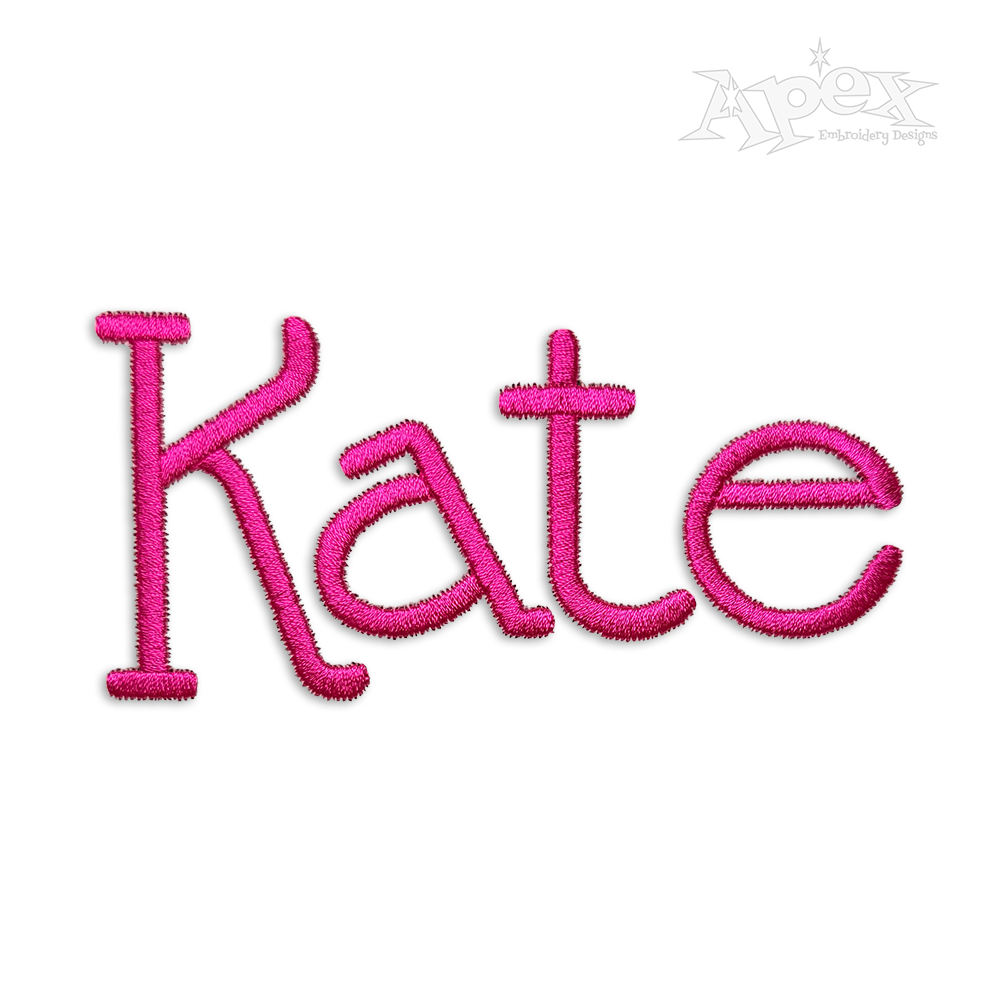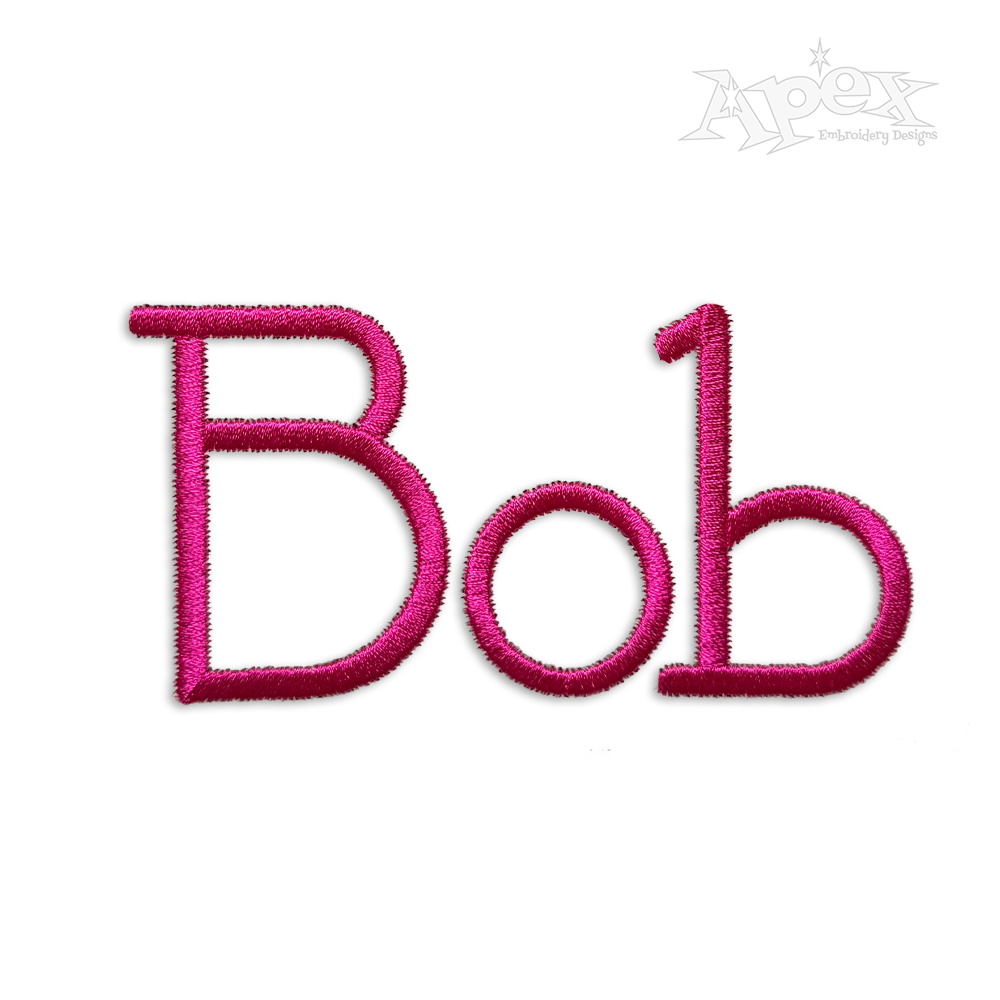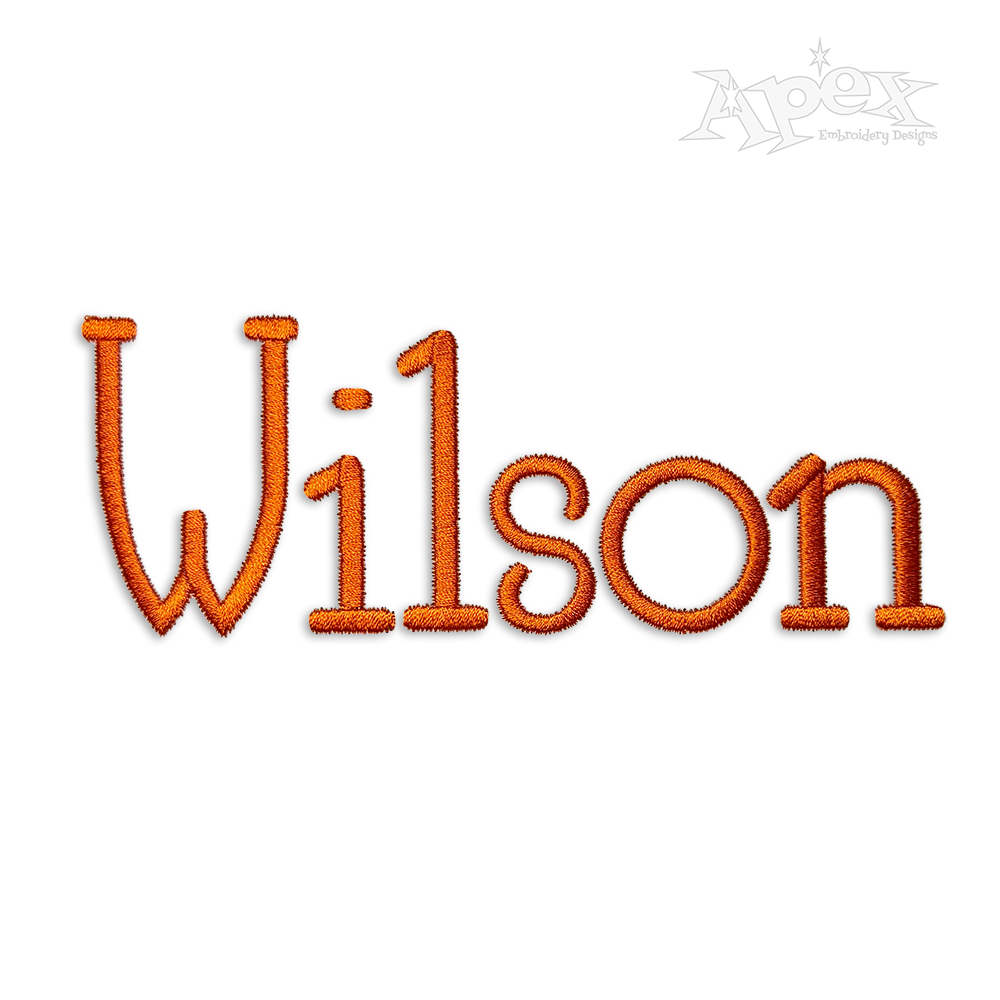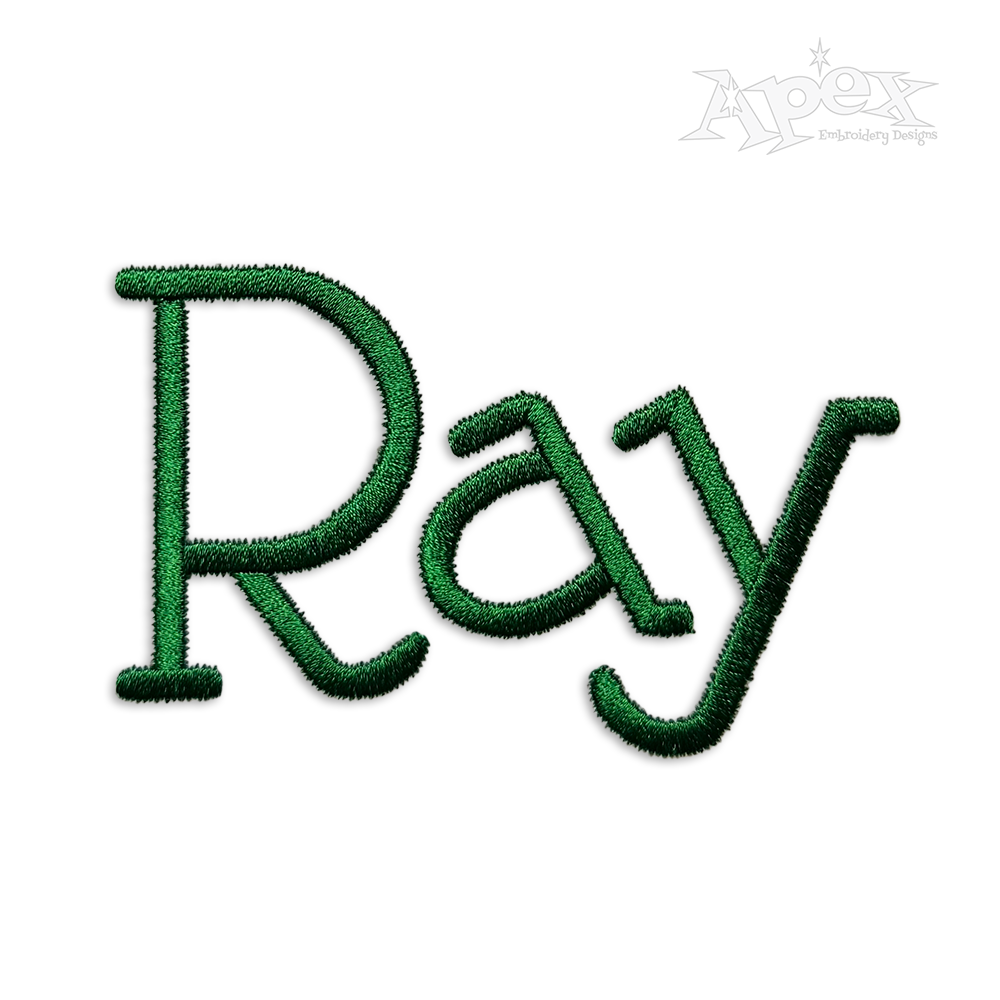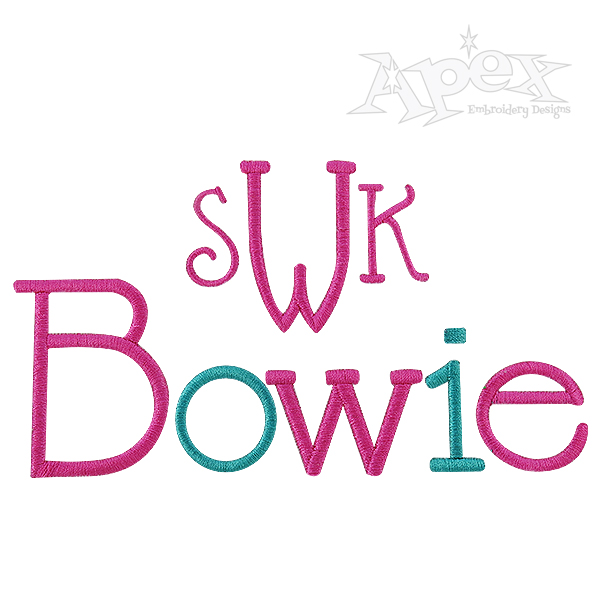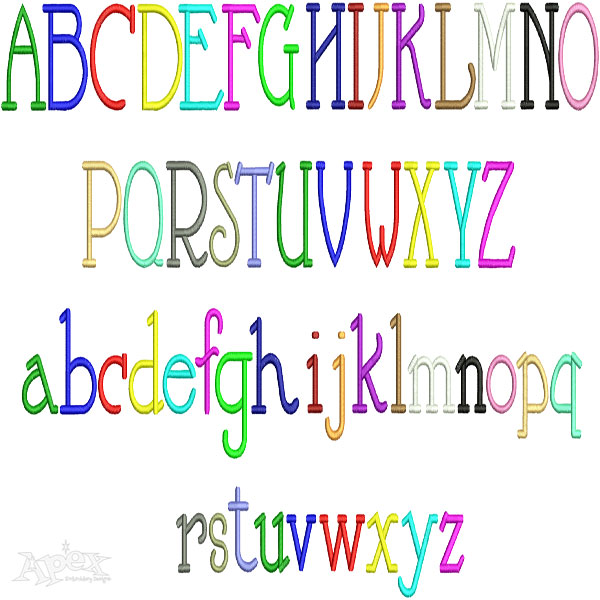
Bowie Embroidery Font
When drafting the Bowie Embroidery Font at our digitizing table, we set out to create an alphabet that balances architectural clean lines with effortless tailoring. Inspired by mid-century modern design yet thoroughly contemporary in execution, Bowie brings a fresh, statuesque confidence to the hoop. Every curve carries a fluid, sculpted movement, while crisp verticals anchor the letters with unmistakable poise. The result is a satin stitch alphabet that feels equally at home elevating a crisp linen resort shirt or lending modern heirloom luxury to quiet bespoke table settings.
Digitized from the ground up to ensure flawless density and satin sheen across five distinct heights, the Bowie collection adapts seamlessly to small personal details and grand statement monograms alike:
Project Ideas for Bowie
With its blend of contemporary poise and timeless rhythm, the Bowie Embroidery Font turns everyday fabrics into personalized keepsakes:
- Bespoke Resort Wear: Stitch sharp tone-on-tone initials onto breathable linen camp-collar shirts, swim trunks, and knit polos.
- Heirloom Bedding & Bath: Embellish 400-thread-count pillow shams, crisp cotton duvet covers, and plush Turkish bath sheets.
- Luxury Table Linens: Pair contrasting embroidery thread with hemstitched linen cocktail napkins and dinner runners for sophisticated dinner parties.
- Bridal & Honeymoon Keepsakes: Monogram bridal party satin robes, getaway bags, and personalized honeymoon travel accessories.
- Heavyweight Canvas Totes: Add an architectural 3-inch or 4-inch single initial to durable beach bags and weekender duffels.
Bowie's balanced proportions make it remarkably versatile across a wide variety of garment and home decor placements:
- Corner Diagonal: Angle 1-inch or 2-inch monograms 1.5 inches in from the corner on hemstitched napkins or pocket squares for a polished finish.
- Center Chest: Place the 3-inch or 4-inch letters centered between the seams of sweatshirts or spa wraps for a commanding statement.
- Left Chest: Utilize the versatile 2-inch sizing, placed roughly 7 to 9 inches down from the shoulder seam and aligned with the collar point.
- Sleeve Cuffs & Collars: Position the precision-engineered 0.50-inch letters along the top of a shirt cuff or along the edge of a jacket lapel for subtle luxury.
- Border Alignment: Align multiple initials along towel borders or table runner hems to create modern linear typographic borders.
Bowie Craft & Letterform Details
Digitizing a font like Bowie requires an obsession with satin stitch flow and tension dynamics. Rather than relying on automated conversions, each letterform has been drafted by hand to ensure optimal underlay density and directional stitch angles. Our paths are carefully sculpted so the light glides across the thread sheen, accentuating the clean contours without flattening the natural dimension of the satin column.
Special attention was poured into the joints where verticals meet gentle curves, deliberately offsetting pull compensation so that every letter sews flat, crisp, and beautifully aligned across fabrics ranging from silky satins to textured linens. Whether working at the compact 0.50-inch scale or the commanding 4-inch dimension, Bowie retains its crisp typography, structural integrity, and smooth running reliability from the first stitch to the last tie-off.